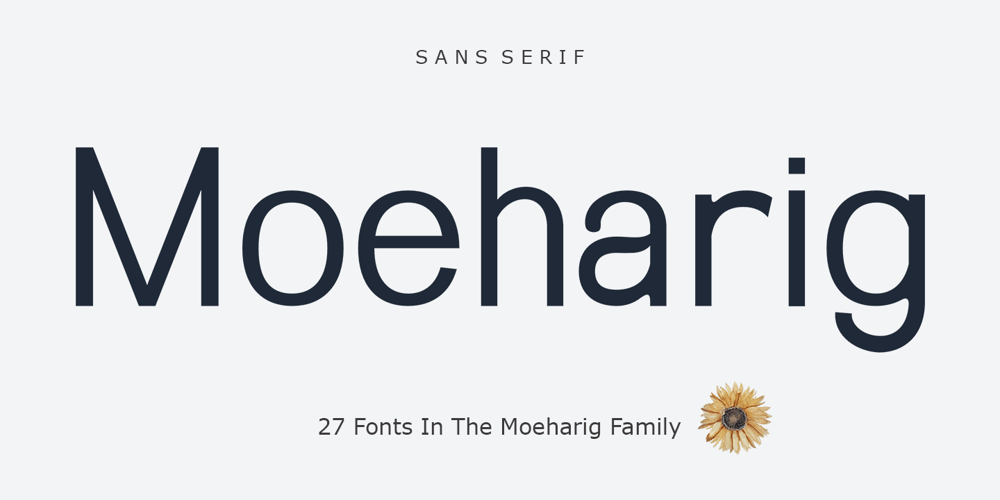
Moeharig
Moeharig font
Moeharig Font Family was designed by Teuku Muhammad Zaki and published by Zaki Creative. Moeharig contains 27 styles and family package options. Moeharig is a truly versatile sans serif font family designed to elevate your projects with elegance and precision. Featuring 27 unique styles, Moeharig covers basic, 3D extrude, and slant variations, each available in nine different weights, ranging from thin to black. Whether you’re crafting sleek branding, editorial layouts, or dynamic digital content, Moeharig offers the flexibility and power to bring your creative vision to life.The 3D extrude option adds striking depth, while the slant styles infuse a sense of motion and energy into your designs. Each character in Moeharig is carefully crafted to exude modern sophistication, ensuring that your work stands out with a professional and contemporary flair.And the best part? Moeharig is priced affordably, making it an exceptional value compared to other premium fonts. You don’t have to break the bank to access high-quality typography.Unlock the potential of Moeharig today – where style meets versatility at an unbeatable price!